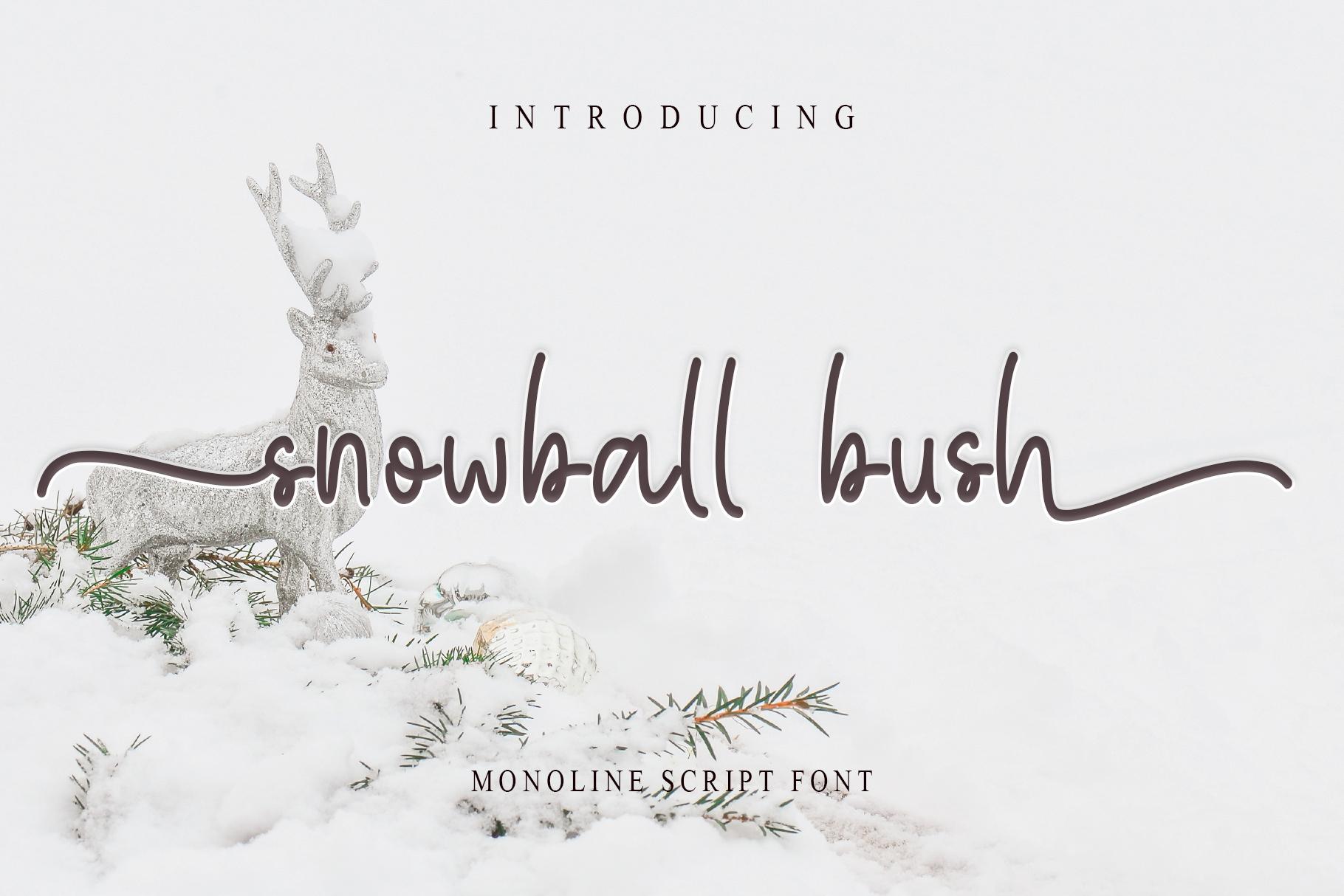
Snowball Bush Font Description
Snowball Bush is a unique handwritten font. It features an elegant and sweet look and will add a unique charm to any design project! This font is PUA encoded which means you can access all of the cute glyphs and swashes with ease! It also features a wealth of special features including alternate glyphs and ligatures.